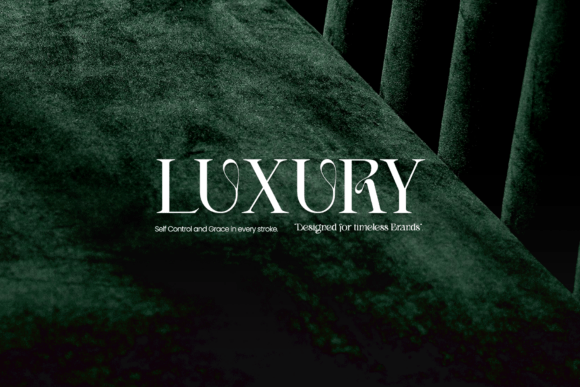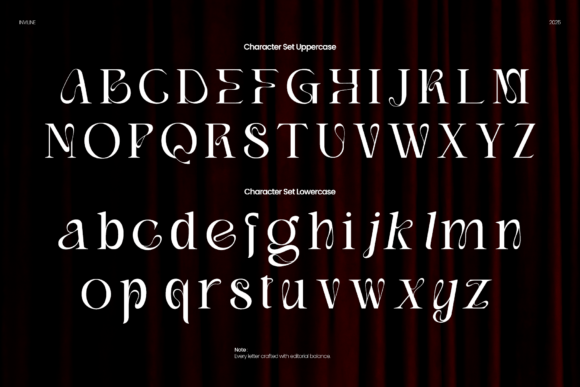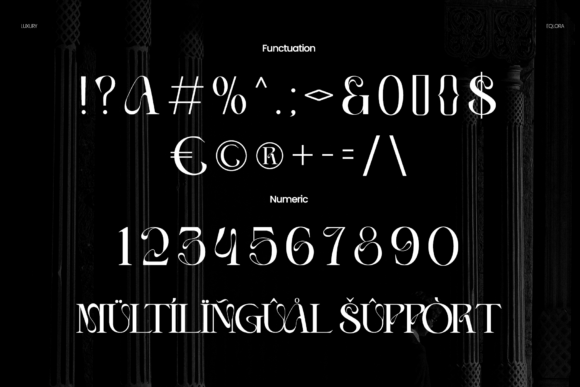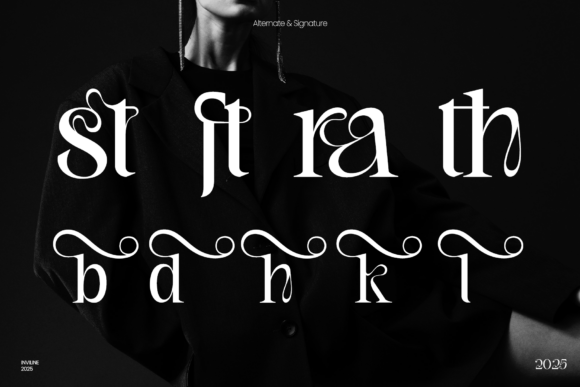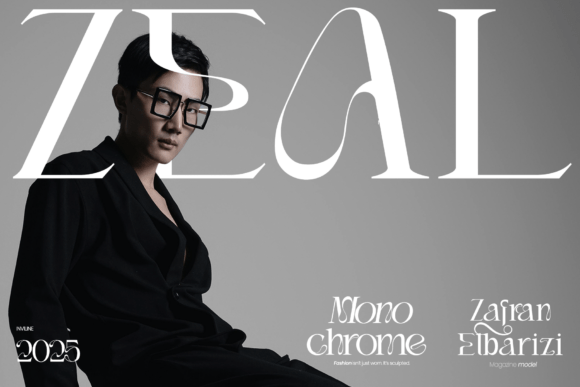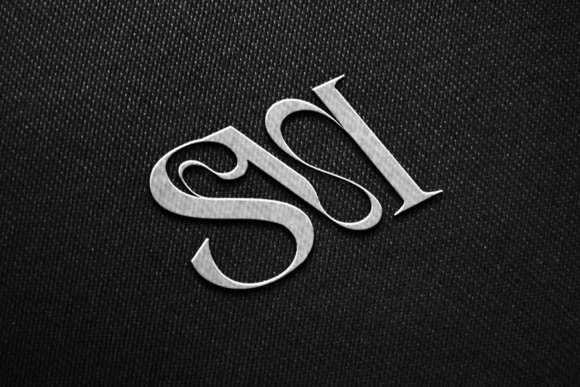
Eqlora Font: Elevate Your Design with Luxury and Sophistication
In the world of typography, fonts play a crucial role in conveying the tone and personality of a brand. For designers and crafters seeking to make a statement, Eqlora Font is an exceptional choice. This high-contrast, luxurious serif font is specifically crafted for fashion branding, editorial layouts, and modern packaging, offering a perfect blend of elegance and sophistication.
The Essence of Eqlora Font
Eqlora Font boasts a distinctive design, characterized by its graceful curves and confident structure. Its high-contrast features create a dramatic visual impact, making it perfect for designs that demand attention. The font’s luxurious feel is ideal for high-end fashion brands, beauty products, and premium design projects, where exclusivity and refinement are paramount.
Key Features of Eqlora Font
- High-Contrast Design: Eqlora’s high-contrast features create a striking visual effect, perfect for headlines, titles, and emphasis.
- Luxurious Serif: The font’s serif design adds a touch of sophistication and elegance, making it suitable for high-end branding and editorial content.
- Graceful Curves: Eqlora’s curves are meticulously crafted to provide a sense of fluidity and dynamism, enhancing the overall aesthetic appeal.
- Confident Structure: The font’s structure exudes confidence and stability, making it perfect for designs that require a strong visual presence.
Perfect Applications for Eqlora Font
Eqlora Font is versatile and can be applied to various design projects, including:
- Magazines and Editorials: The font’s luxurious feel and high-contrast design make it perfect for magazine covers, headlines, and editorial content.
- Beauty Brands: Eqlora’s elegance and sophistication make it an excellent choice for beauty brands, skincare products, and cosmetics.
- Social Campaigns: The font’s confident structure and luxurious feel make it suitable for social media campaigns, especially those promoting high-end products or services.
- Premium Design Projects: Eqlora Font is ideal for designers working on premium projects, such as luxury packaging, branding, and advertising.
Why Choose Eqlora Font?
Eqlora Font offers a unique combination of luxury, sophistication, and versatility, making it an attractive choice for designers and crafters. Here are a few reasons why Eqlora stands out:
- Unique Design: Eqlora’s high-contrast, serif design sets it apart from other fonts, providing a distinctive look that can elevate your designs.
- Improved Readability: The font’s clear structure and elegant curves ensure excellent readability, making it suitable for body text and headlines.
- Flexibility: Eqlora Font can be used for a wide range of design projects, from fashion branding to editorial layouts, and even packaging.
Eqlora Font is a luxurious serif font designed to make a statement. Its high-contrast features, elegant curves, and confident structure make it perfect for designers and crafters seeking to create sophisticated and refined designs. With its versatility and unique design, Eqlora Font is an excellent choice for fashion branding, editorial layouts, and modern packaging. Whether you’re working on a magazine, beauty brand, or premium design project, Eqlora Font is sure to elevate your design to new heights.